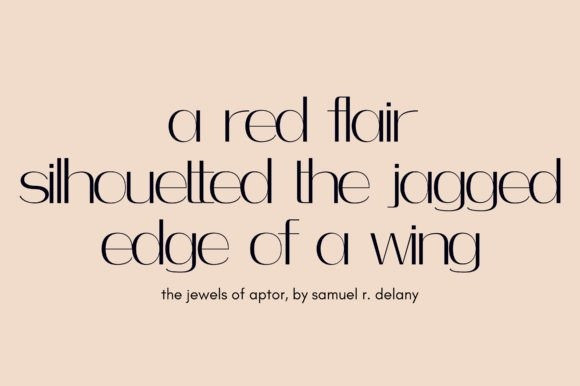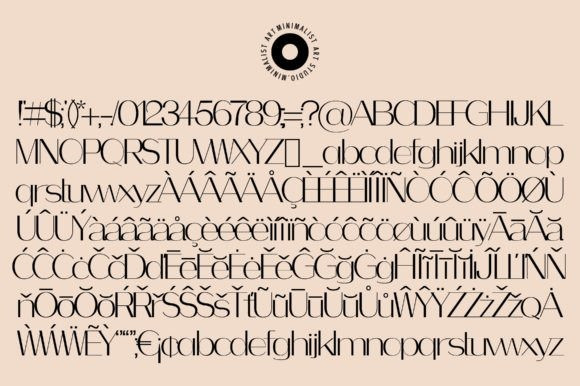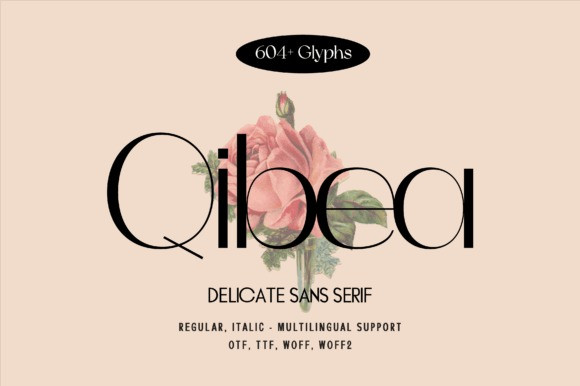
Qibea Font
Qibea Font, the perfect font for those who value sophistication and elegance. This chic and delicate sans-serif font is crafted with precision, making it ideal for projects that require a touch of refinement.
Qibea is designed to capture attention without overwhelming the viewer. Its clean lines and airy spacing create a sense of lightness and ease that is perfect for modern designs. Whether you’re working on a branding project, a fashion editorial, or a wedding invitation, Qibea will elevate your work to the next level.